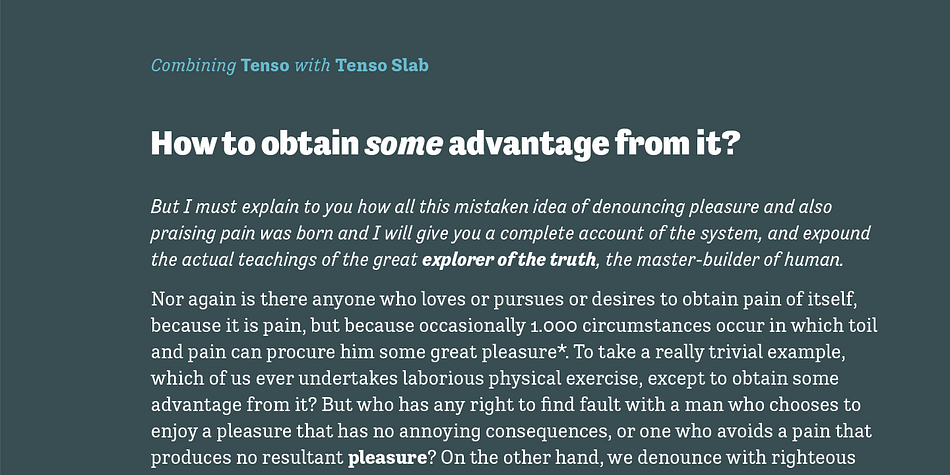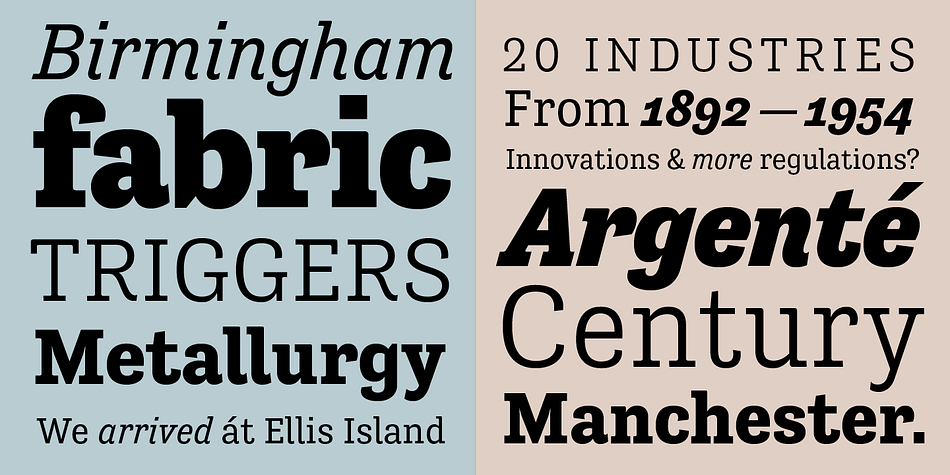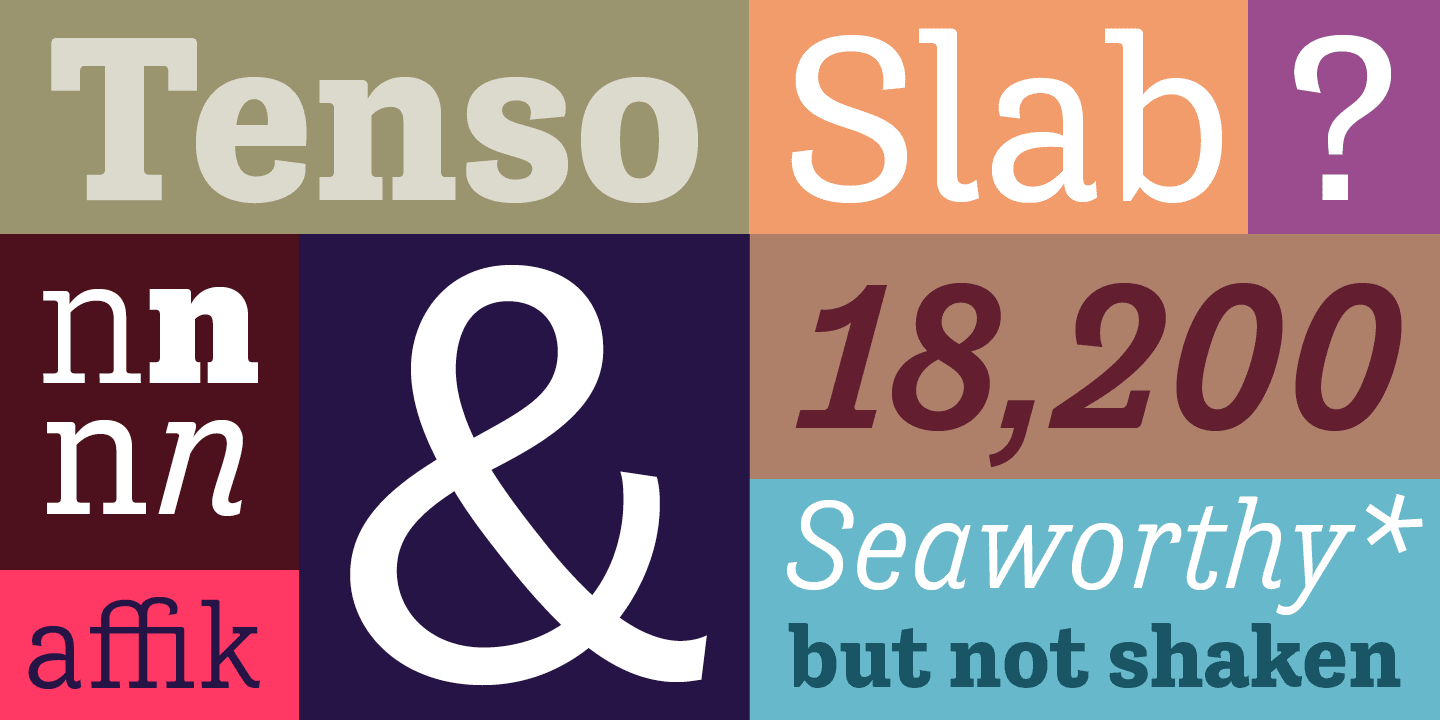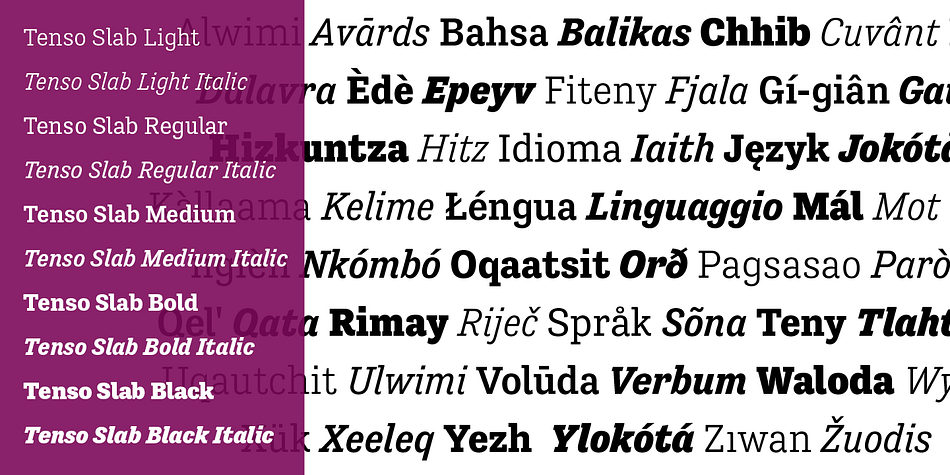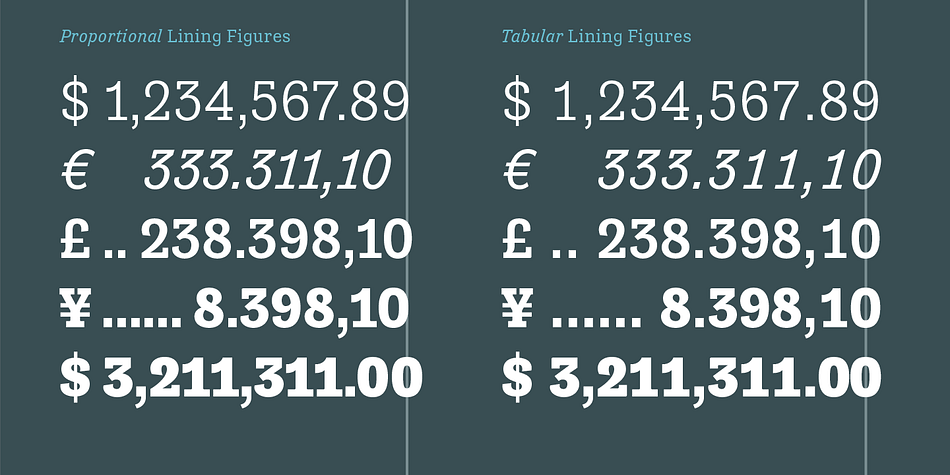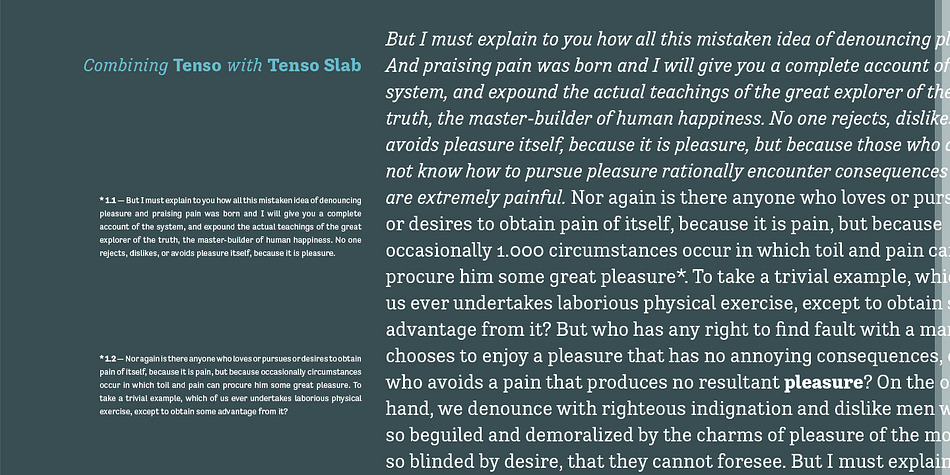
Tenso Slab
Designed by Jos Buivenga, Tenso Slab is a slab serif font family. This typeface has ten styles and was published by exljbris Font Foundry.
Tenso Slab is a versatile and playful Slab Serif based on the -in 2013 released- Tenso, which is a an economic running sans serif with a lot of character.
Designer Jos Buivenga